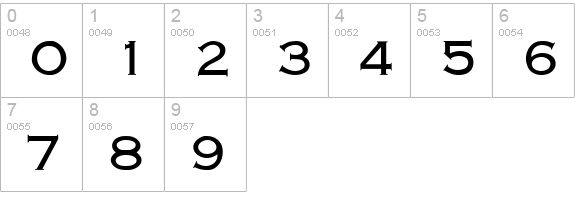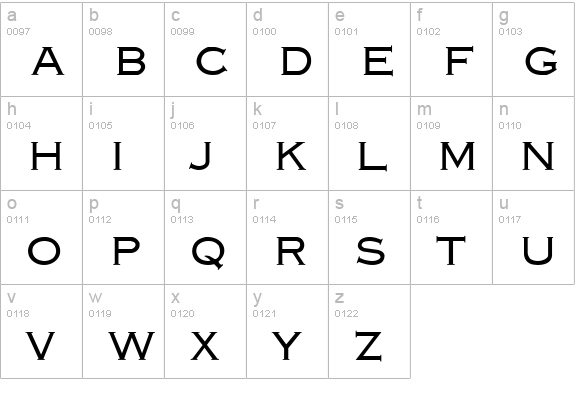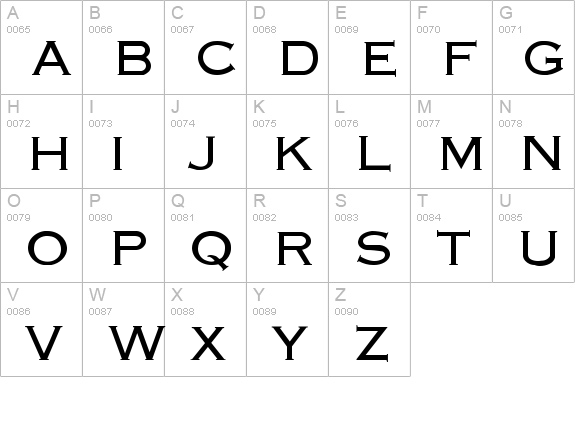
Cupro Display Caps SSi Font Details
Cupro Display Caps SSi font is a sophisticated and elegant typeface that exudes a sense of modernity and style. Its sleek and polished letterforms make it perfect for creating eye-catching headlines, titles, and logos. The font features unique uppercase characters that command attention and add a touch of sophistication to any design project. Best of all, Cupro Display Caps SSi font is available for free download at FontsMarket.com. This means you can easily access this stunning font and use it in your creative projects without any cost. Whether you're designing a poster, branding materials, or a website, Cupro Display Caps SSi font will surely elevate your designs and leave a lasting impression on your audience. Download this beautiful font today and unleash your creativity with its stunning aesthetic and versatility.